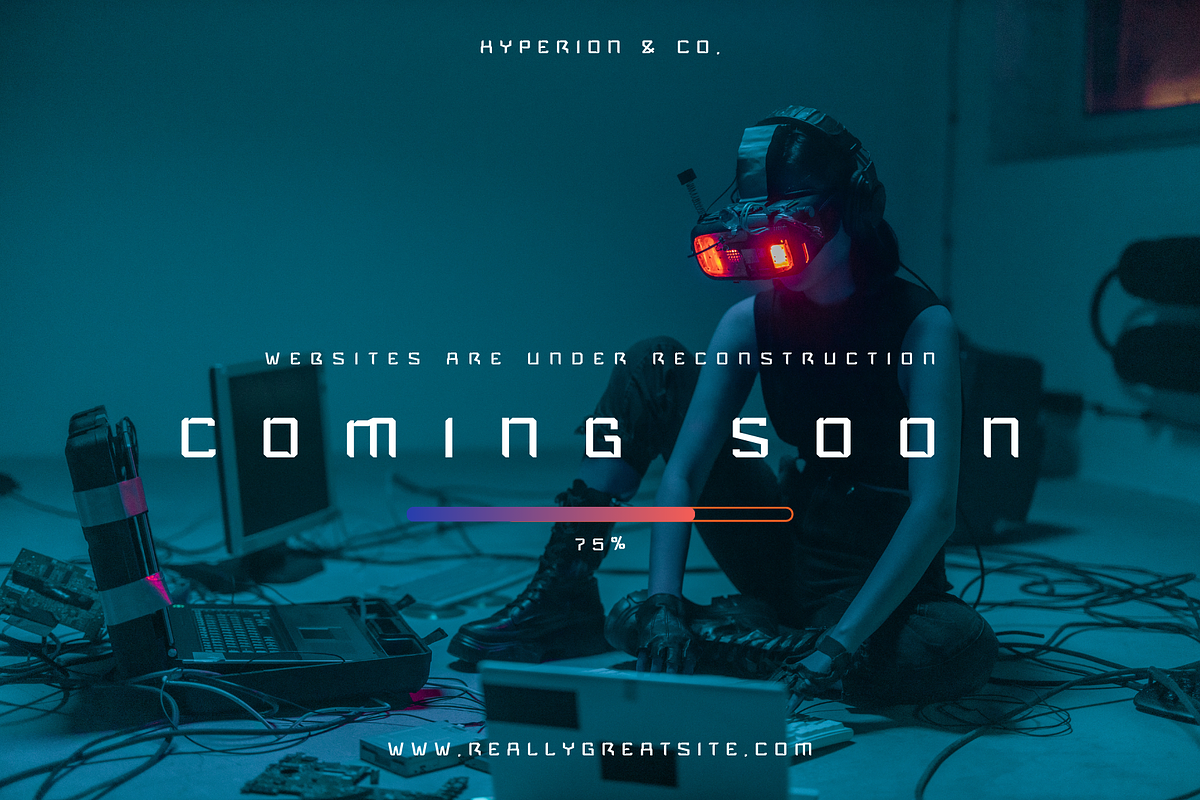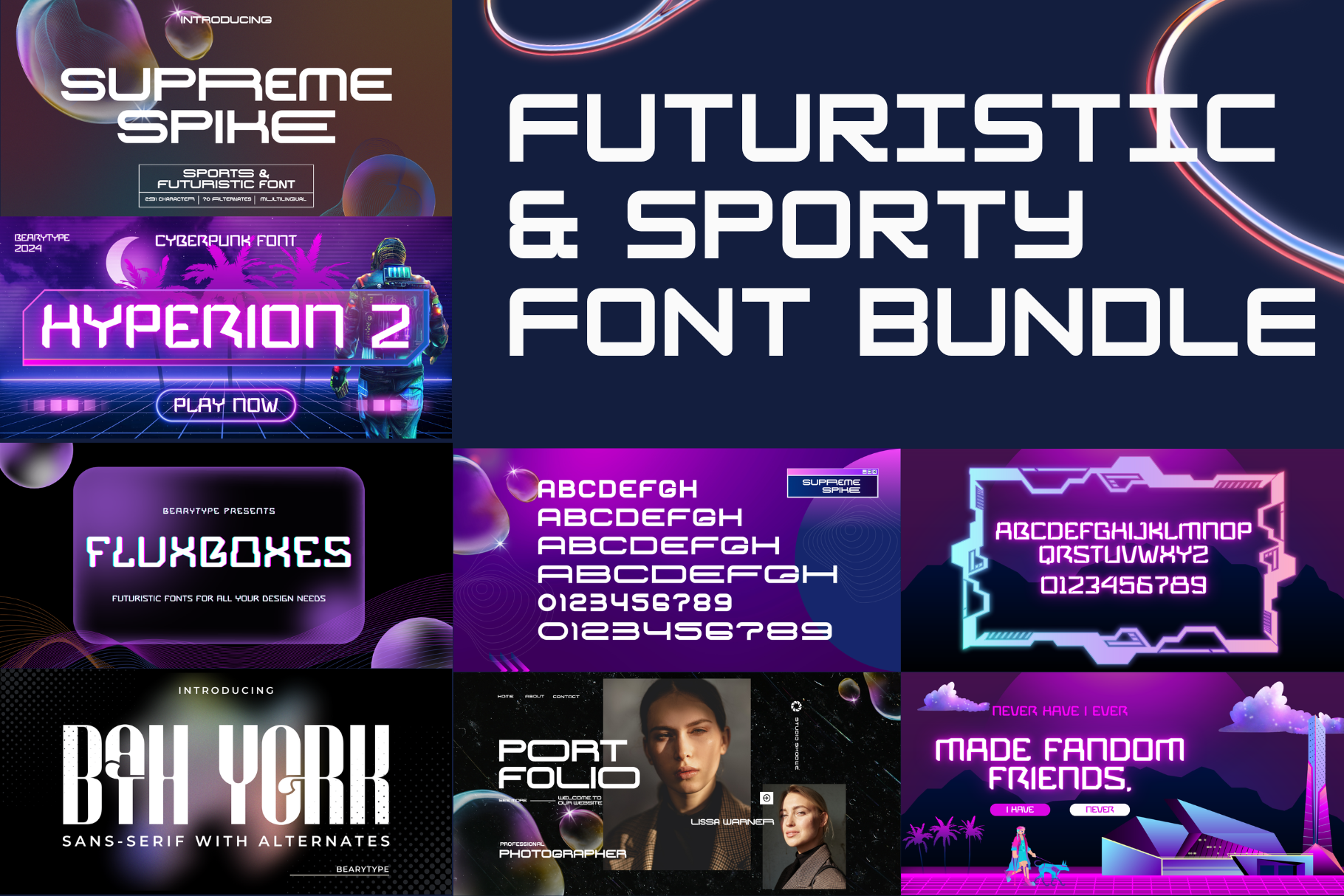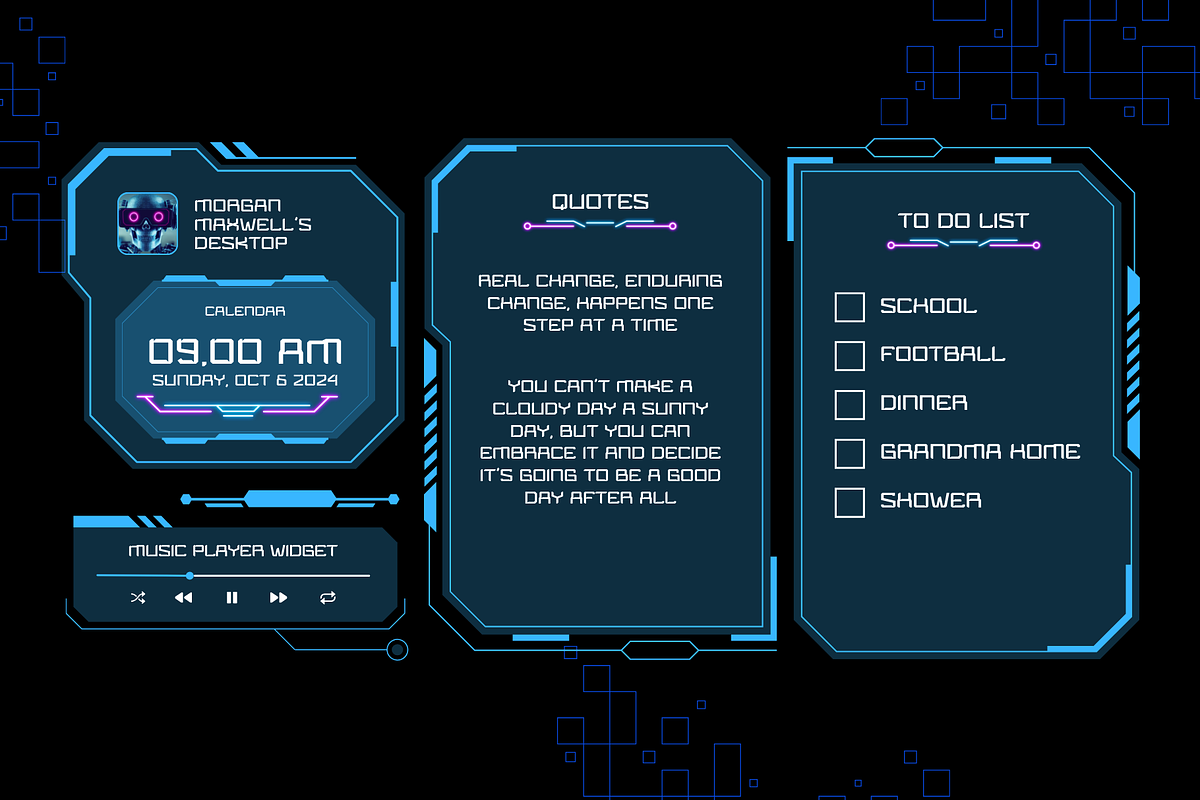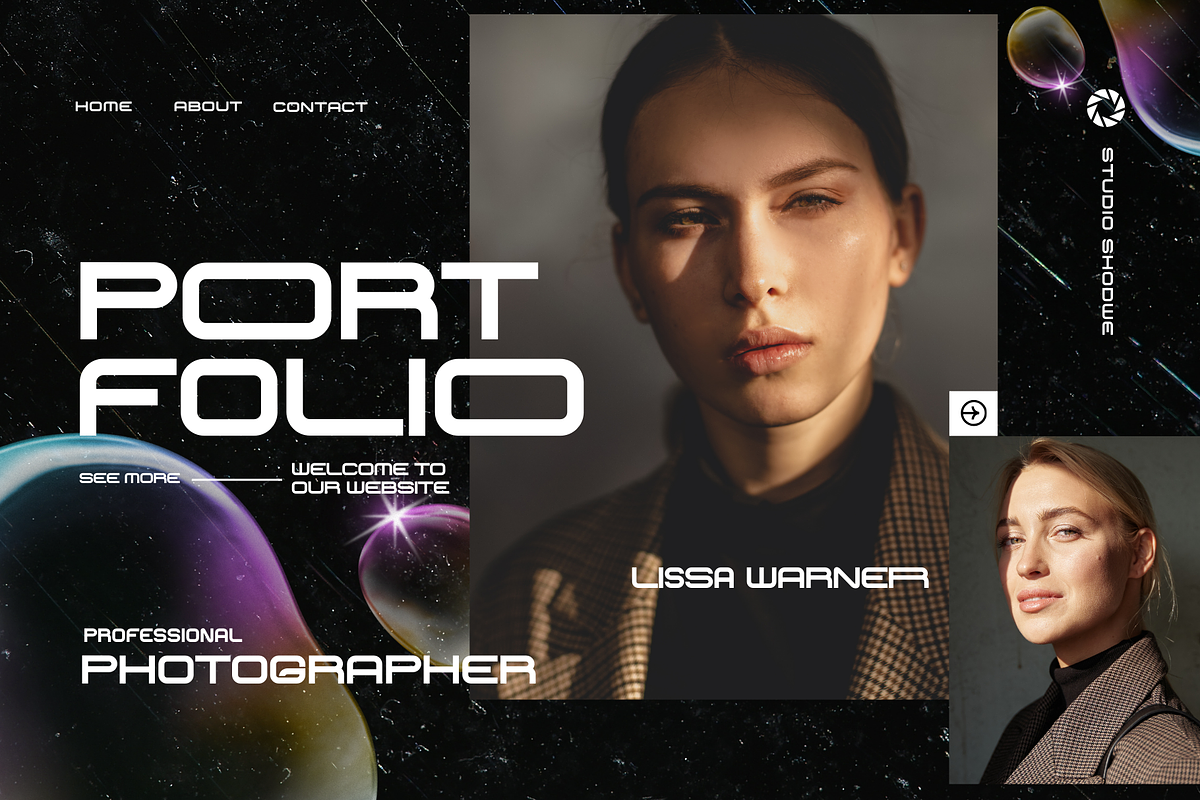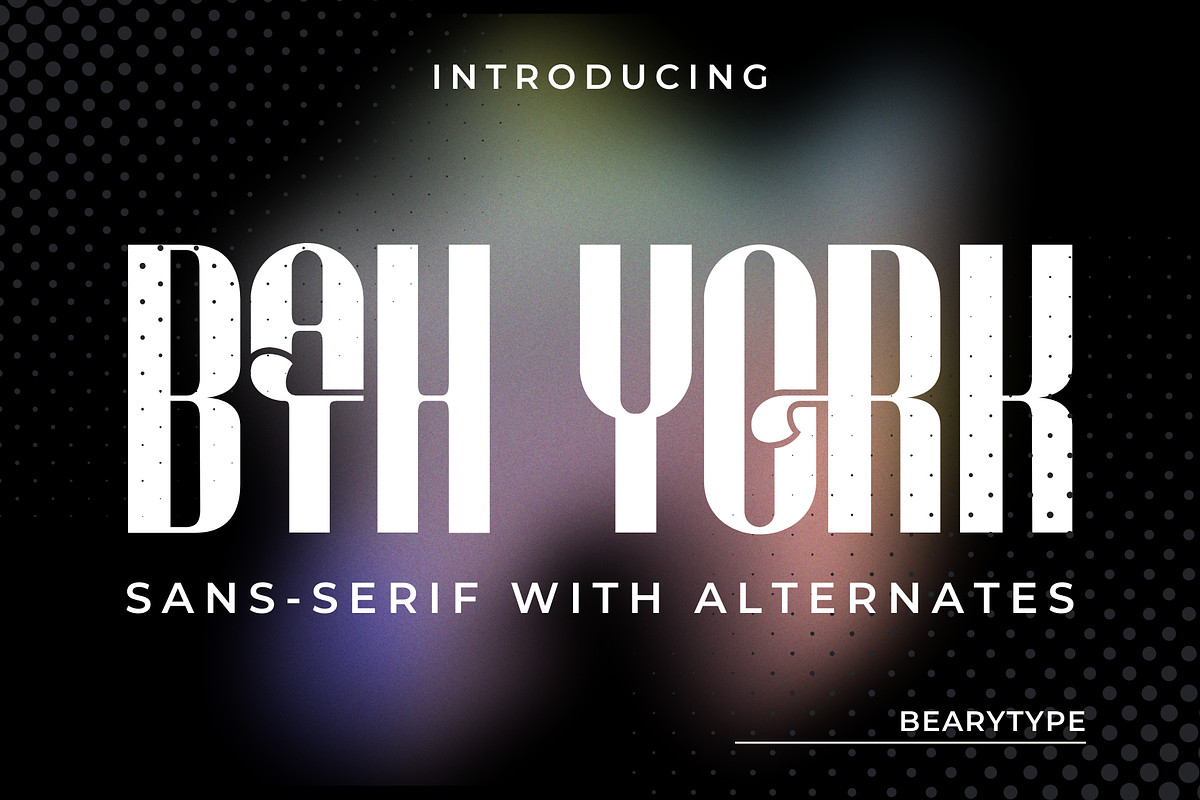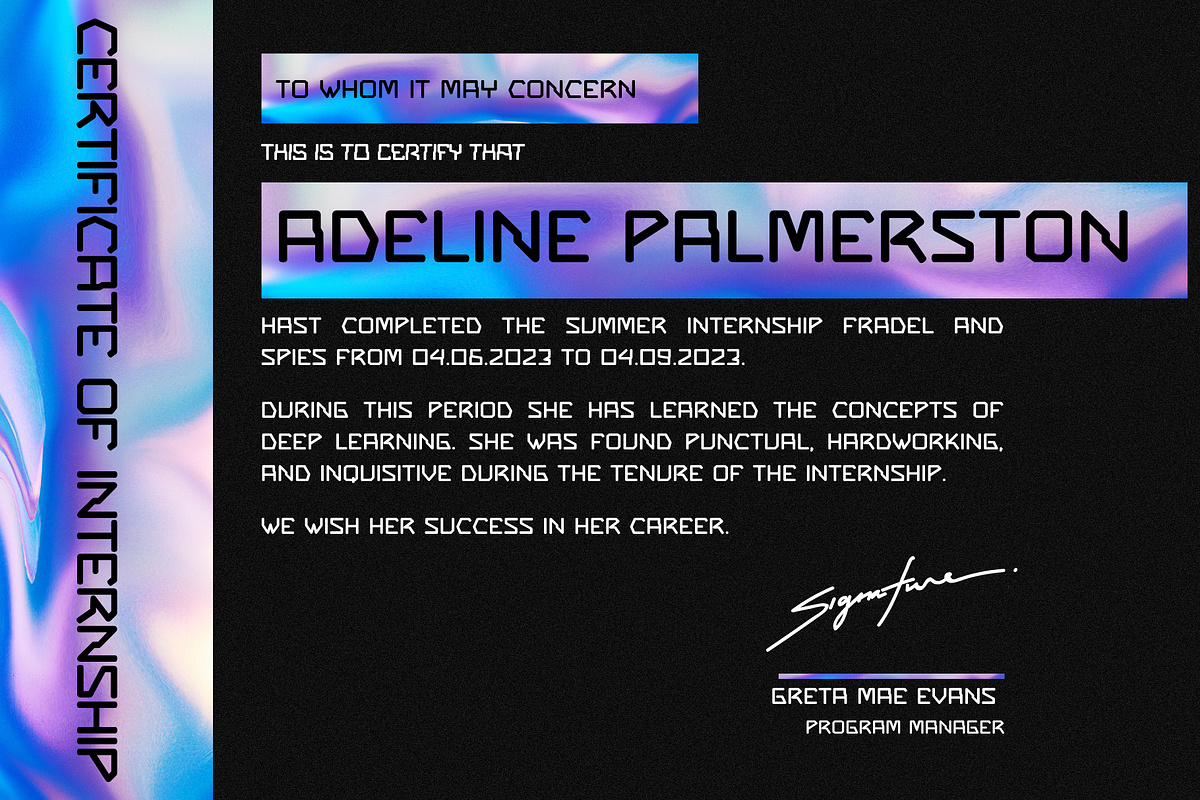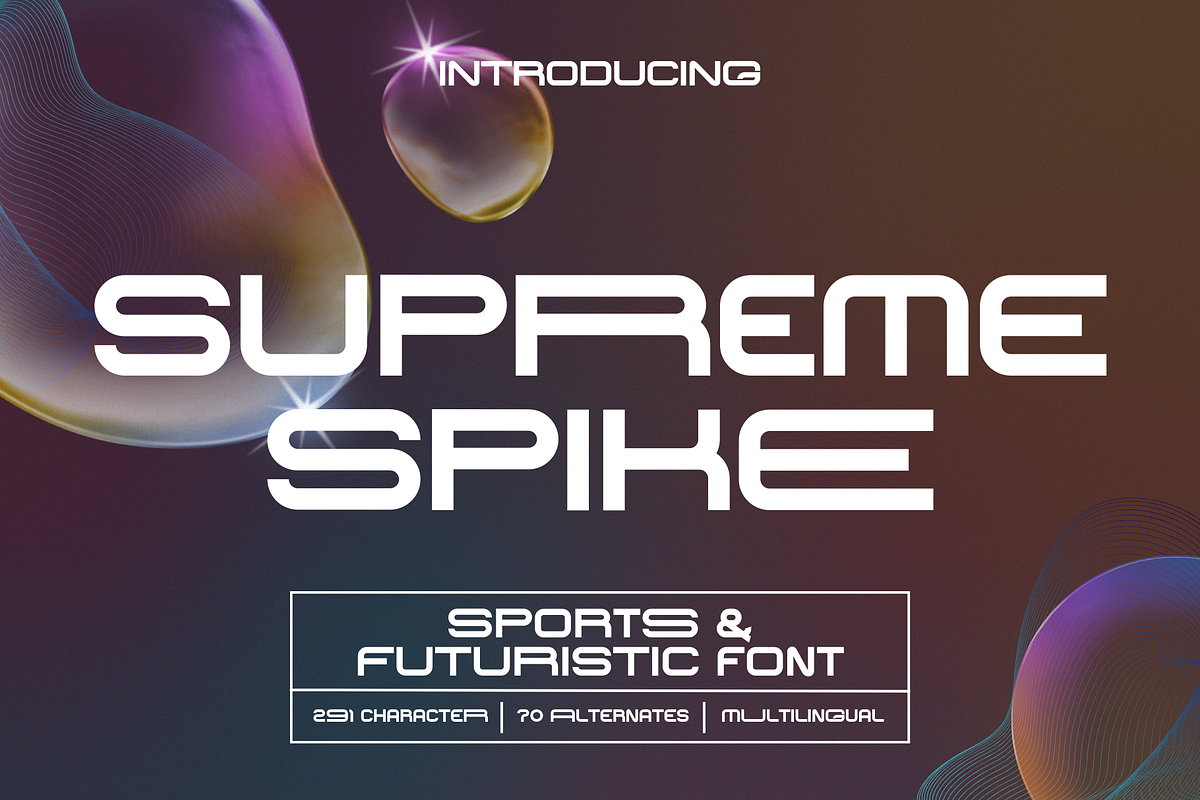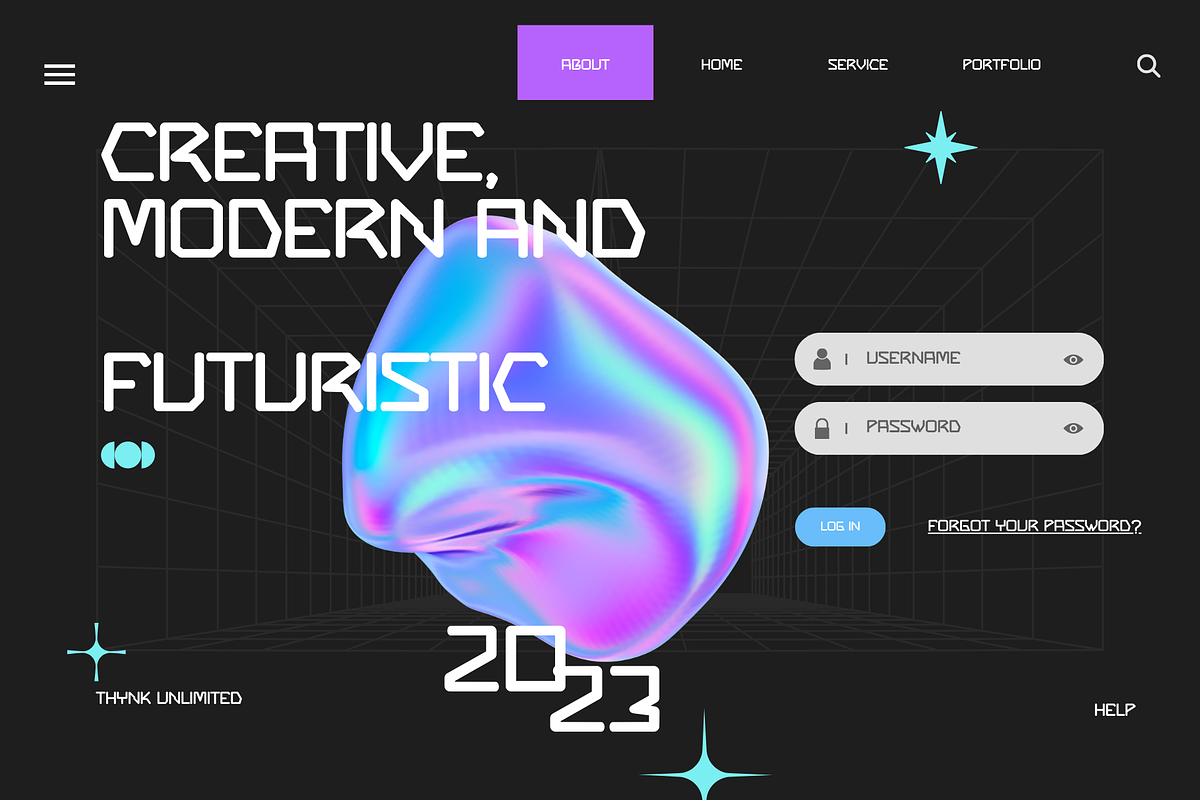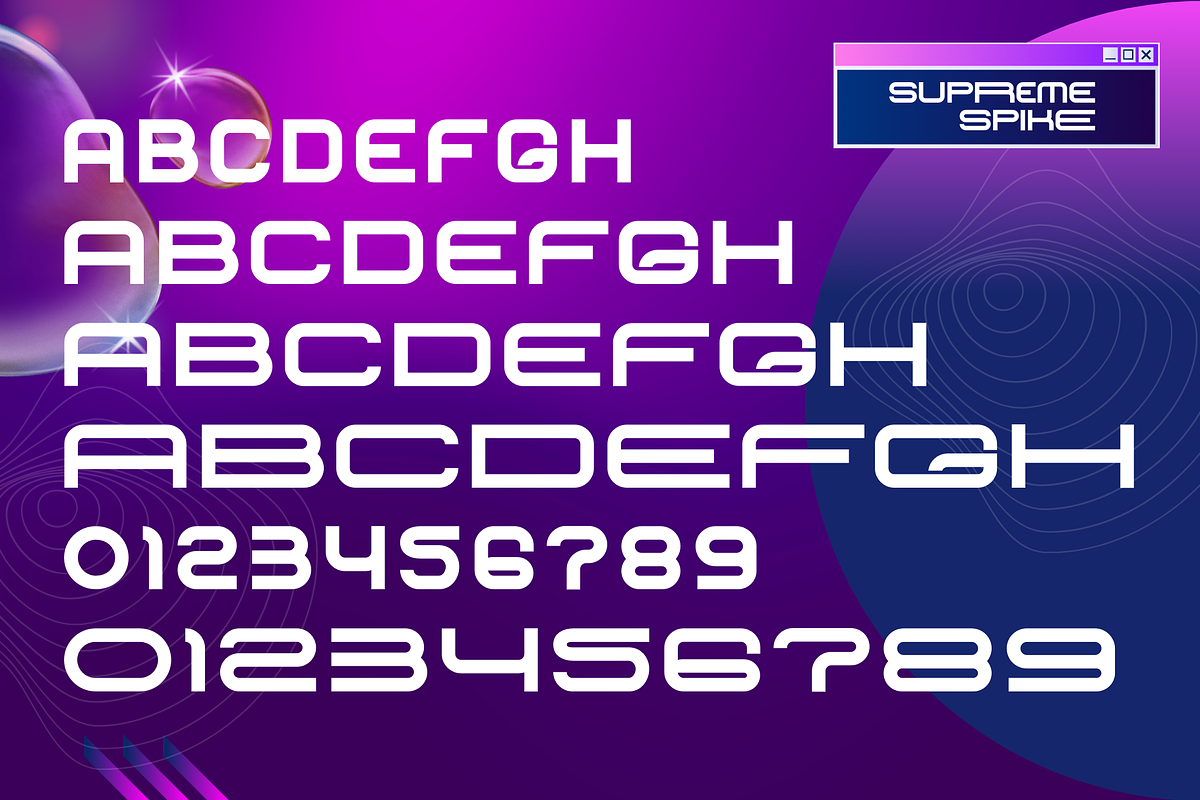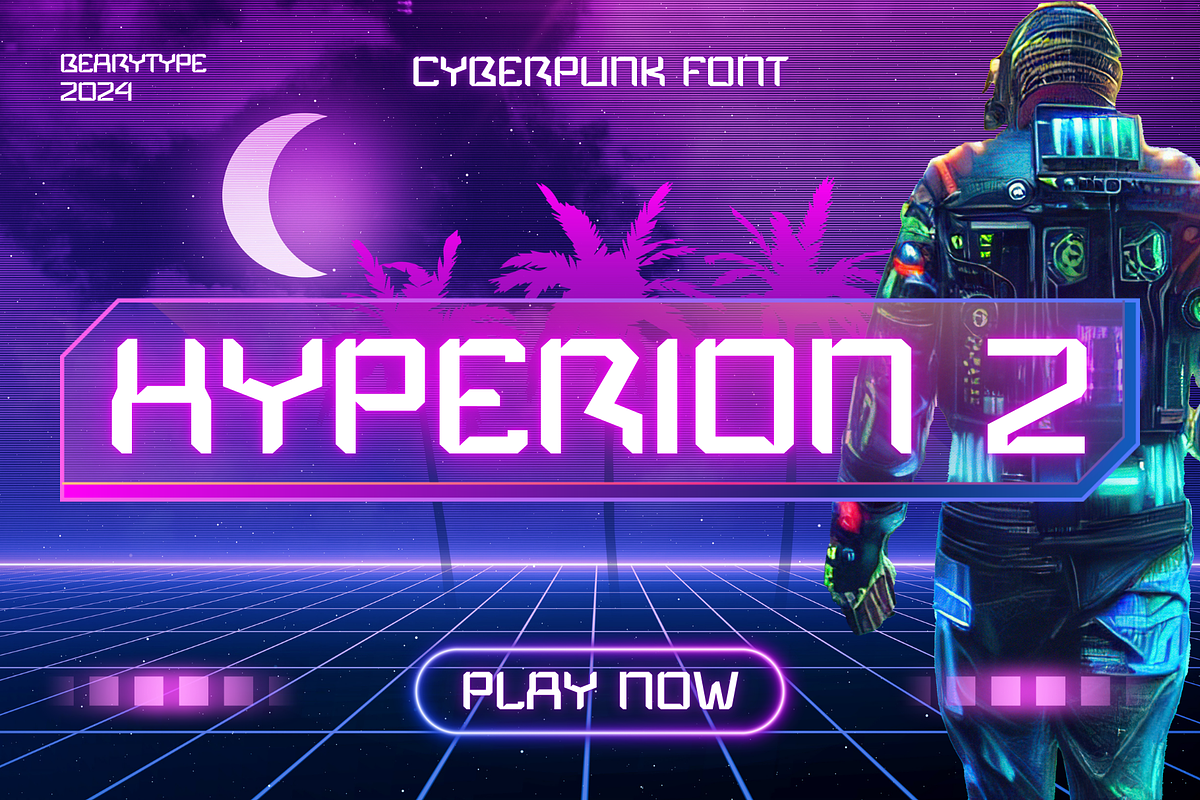
Futuristic and Sporty Font Bundle
Discover the perfect blend of futuristic innovation and sporty energy with our 4-font bundle! Each font in this collection is meticulously crafted, boasting its own unique charm and character. Whether you're designing for high-tech projects, sports branding, or sleek modern visuals, this bundle has everything you need to make your creations stand out.
Here’s why you’ll love this bundle:
4 Distinctive Fonts: Each font comes with its own unique style, perfect for different futuristic and sporty themes.
Versatile Use: Ideal for posters, logos, team merchandise, tech presentations, and more.